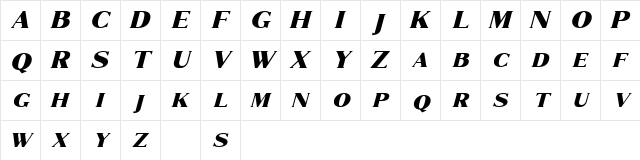
Marques Free Italic
Design Context for Marques Free Typeface
Marques Free takes a measured approach to typography — its balanced proportions and neutral character make it a reliable workhorse for both digital and print work. The slanted form adds forward momentum and visual energy.
Pro Tip: Try Marques Free for annotation and caption copy alongside an upright companion — the contrast in angle creates a dynamic but ordered typographic system.